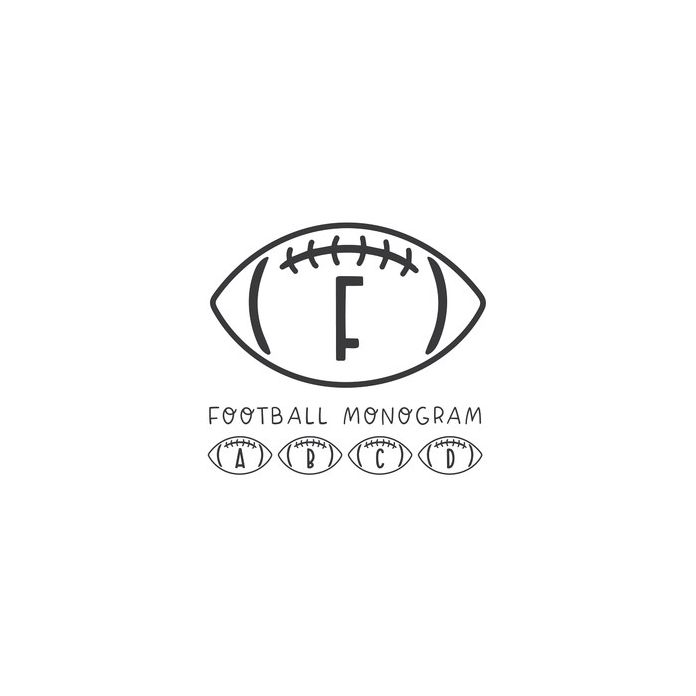
dtc football monogram font
"Football Monogram" is a sporty football font. This font includes letters A-Z, numbers 0-9 and 1 extra blank football (use @ key). This font pairs with our font "Aloma Island" if you would like to match it with text. Total Glyph Count: 70